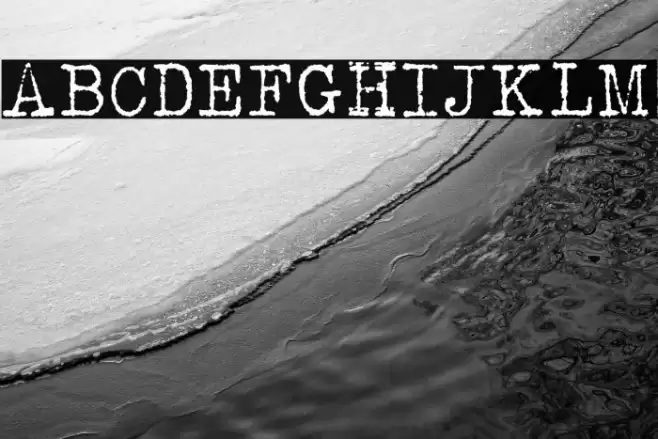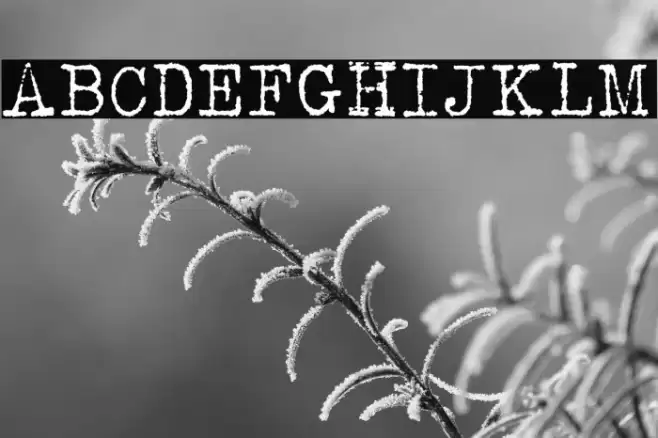
Albertsthal Typewriter Font
Albertsthal Typewriter Description
This typewriter-style font exudes a vintage charm with its rough, textured appearance reminiscent of classic typewritten documents. Each character is uniquely distressed, giving it an authentic, worn look that suggests age and use. The uppercase and lowercase letters maintain a consistent style, with slightly uneven edges and a monospaced alignment typical of traditional typewriters. Numbers and special characters follow the same aesthetic, ensuring a cohesive appearance across all glyphs. This font's nostalgic feel makes it ideal for projects that aim to evoke a sense of history or retro appeal.
A vintage typewriter-style font with a distressed, textured appearance from Uncategorized fonts.
- Font: Albertsthal Typewriter
- Proposed Projects: Ideal for retro-themed designs, vintage posters, typewriter-inspired art, and historical documents.
- Overall Style: Vintage
- Use Case: Headlines, Logos, Decorative text